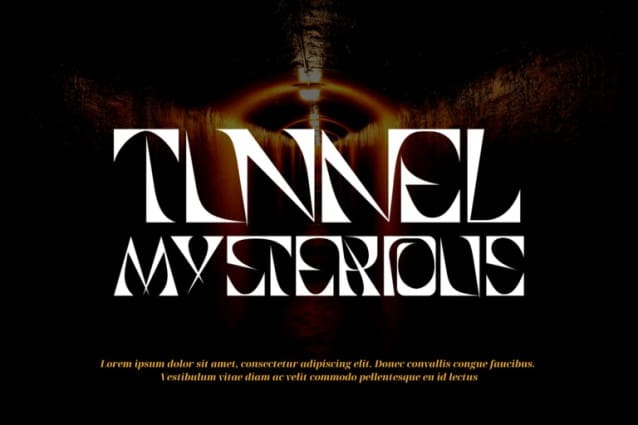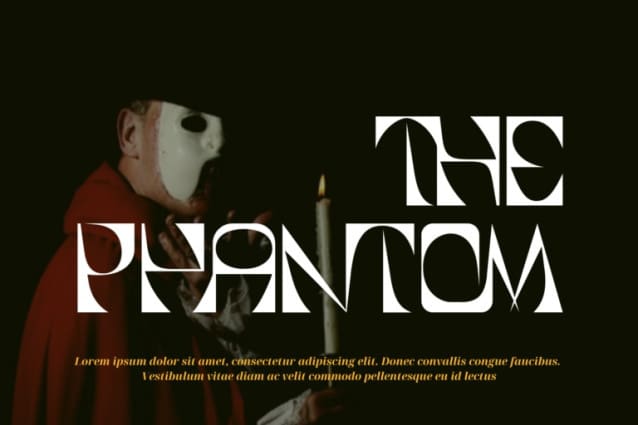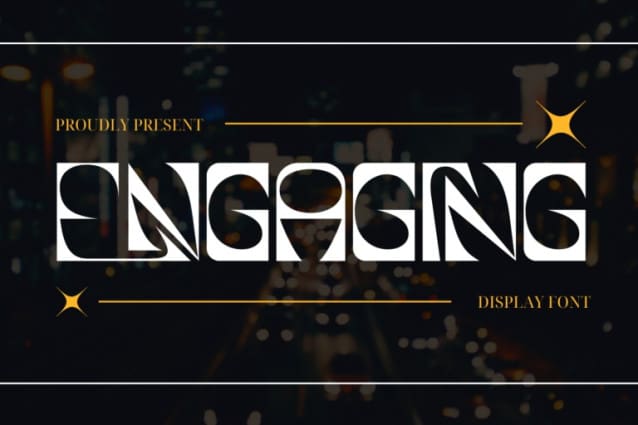
Engaging Stencil Font
Engaging Stencil Font – a modern display font that blends contemporary style with a touch of elegance. With tall sharp edge stroke, fun character with alternates. To give you an extra creative work. This font is the perfect match for kids and children-theme design. Kolton Monica font is ideal for logos, posters, packaging, banner, and other creative projects that demand cheerful vibe and fun elements.
Engaging Stencil was built with OpenType features and includes 100 ligatures, alternate, numbers, punctuation, and it also supports other languages.
AC AD AL AN AR AS AT AU AV BE CA CE CH CO CT DE DI EA EC ED EE EL EM EN EP ER ES ET FE FO FR GE HA HE HI HO IE IC IL IN IO IR IS IT JU KE LA LE LI LL LO LY MA ME MI NC ND NE NG NO NT NS OC OF OM ON OO OP OR OT OU OW PA PR RA RD RE RI RO RS RT SE SH SI SO SS ST TA TE TH TI TO TR TT UM UN UR VE WI WO